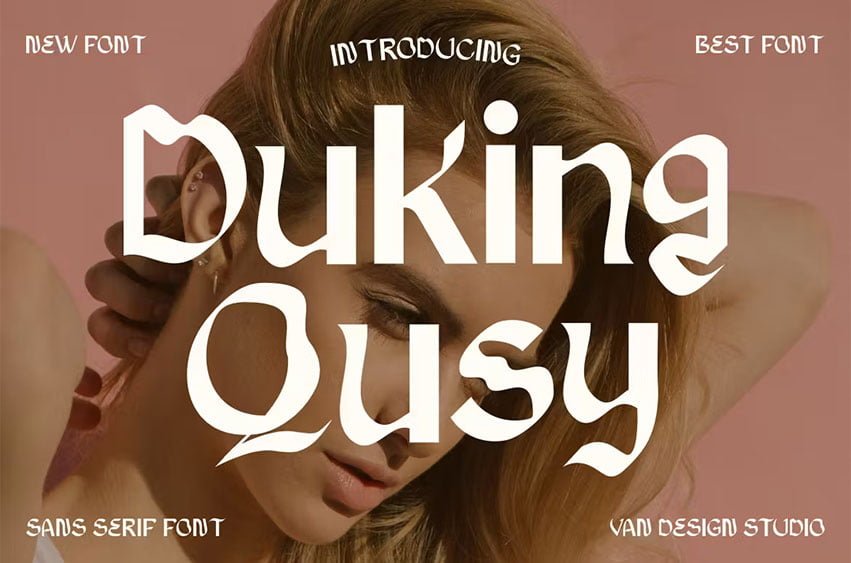
Duking Qusy Font
Duking Qusy Font is a unique font. Can make it easier to convey the message in your design. Use for awesome display, labeling, clothing, movie sceen, poster, movie title, gigs, album covers, logos, and much more.